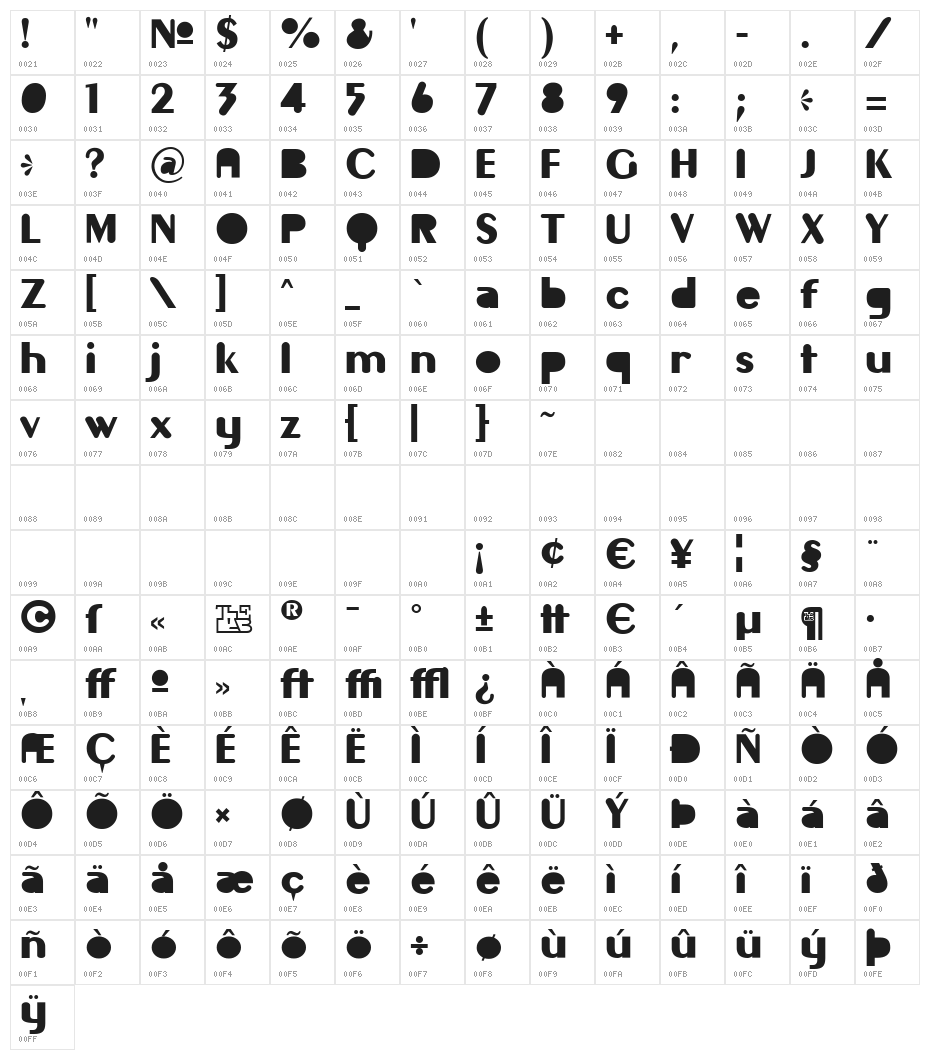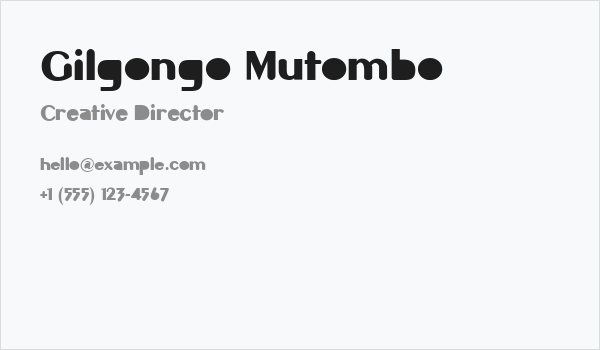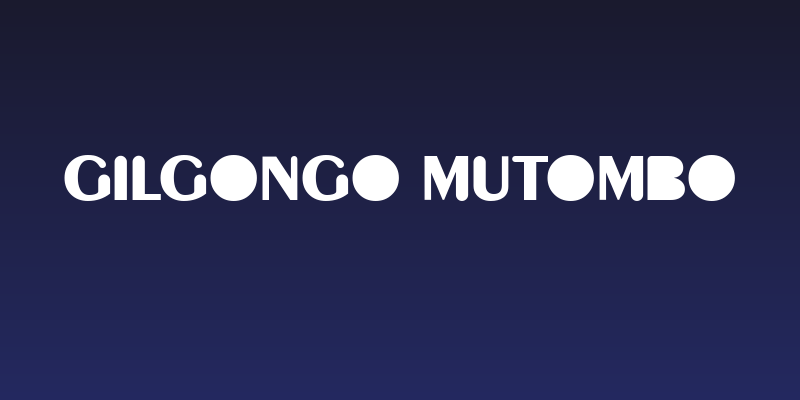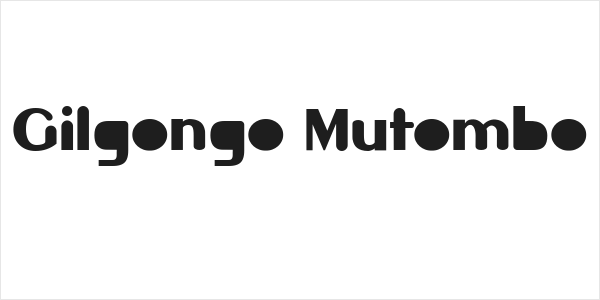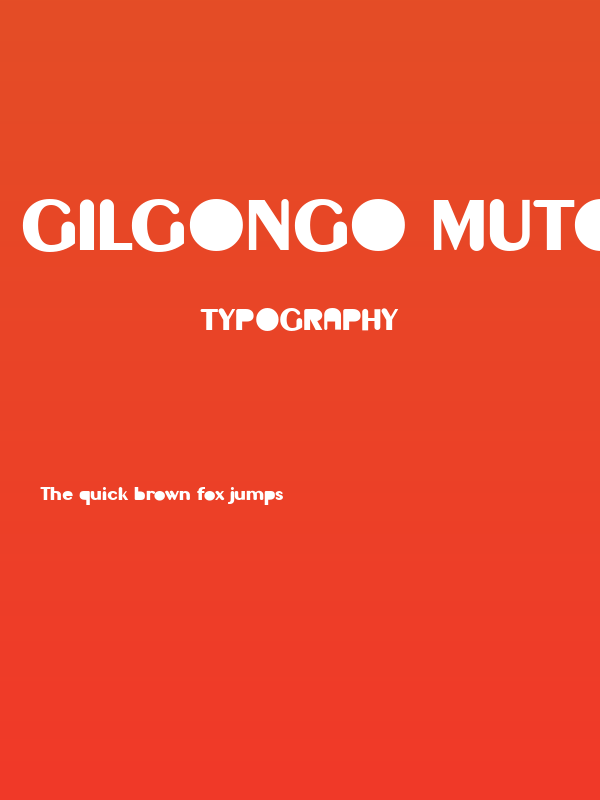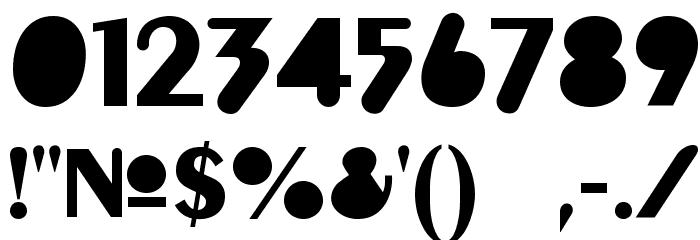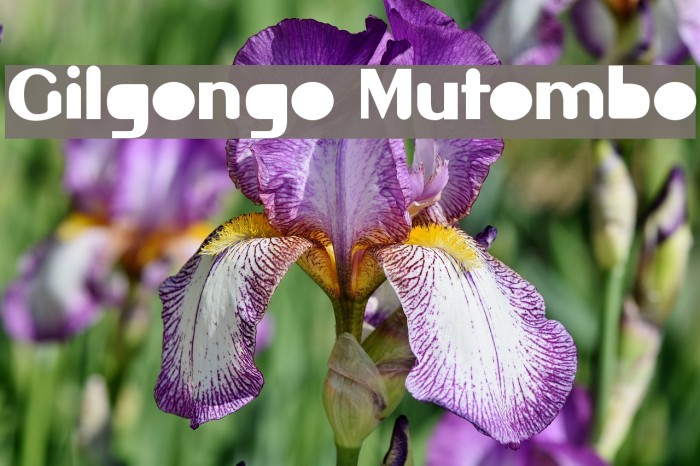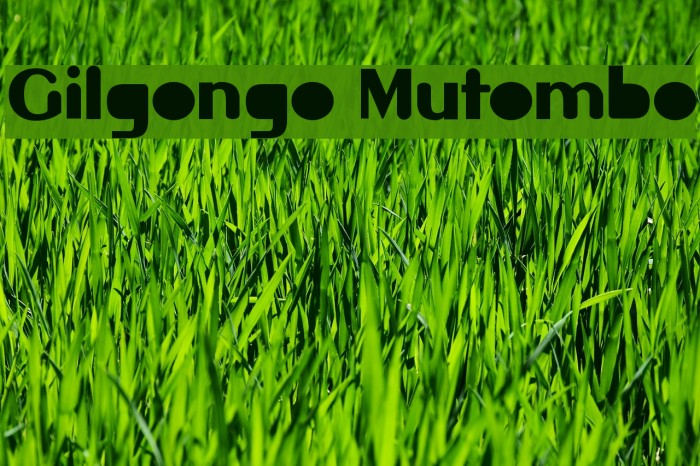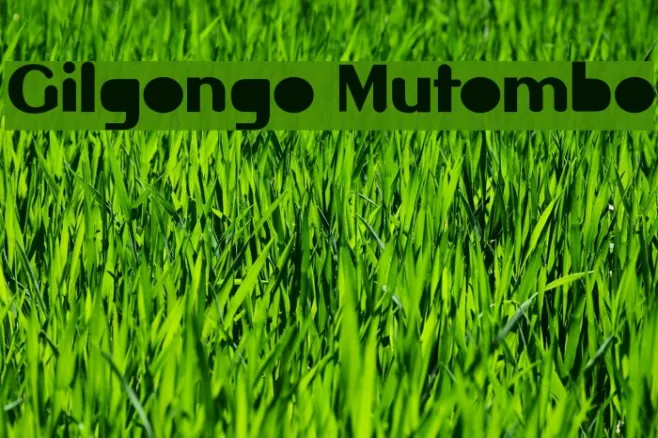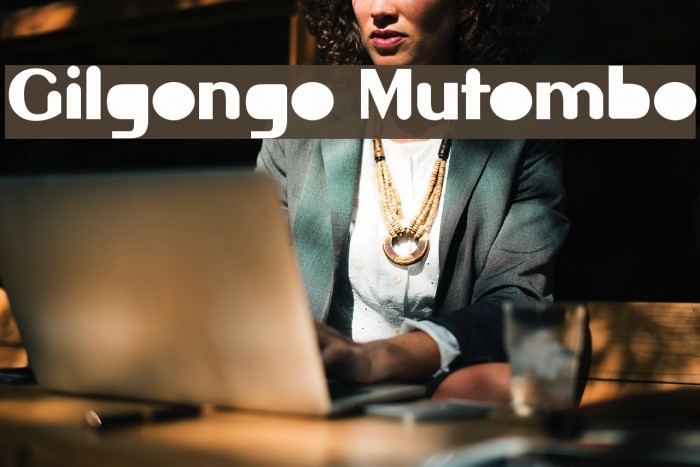
Gilgongo Mutombo Font
Gilgongo Mutombo Description
This font features a bold and rounded style with a modern and playful aesthetic. The characters are thick and have a distinct geometric form, with some letters incorporating unique design elements such as the tail of the 'Q' and the curved leg of the 'R'. The lowercase letters maintain the same boldness and roundness, creating a cohesive look throughout the typeface. The numerals are equally bold, with a consistent height and width that matches the letters. Special characters are designed to complement the overall style, maintaining the bold and rounded theme. This font is highly legible and makes a strong visual impact.
| Proposed Projects | Ideal for branding, headlines, posters, and any design requiring a strong visual impact. |